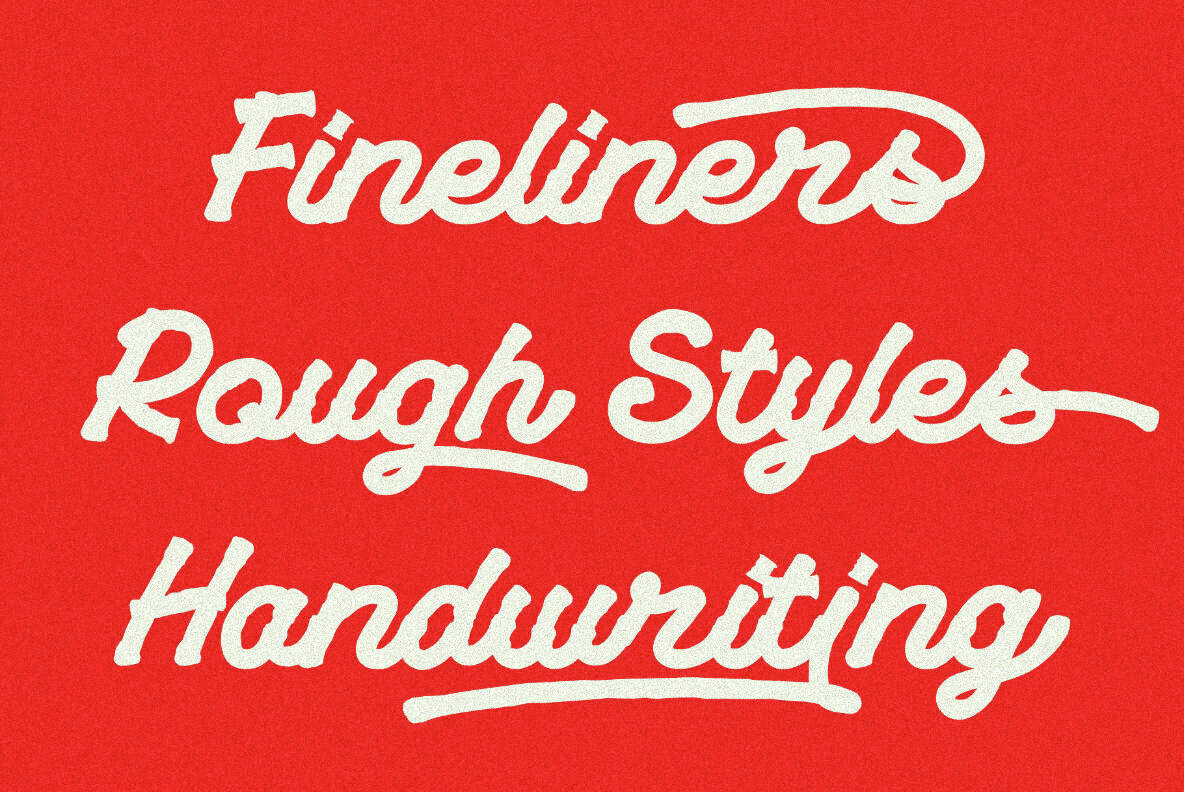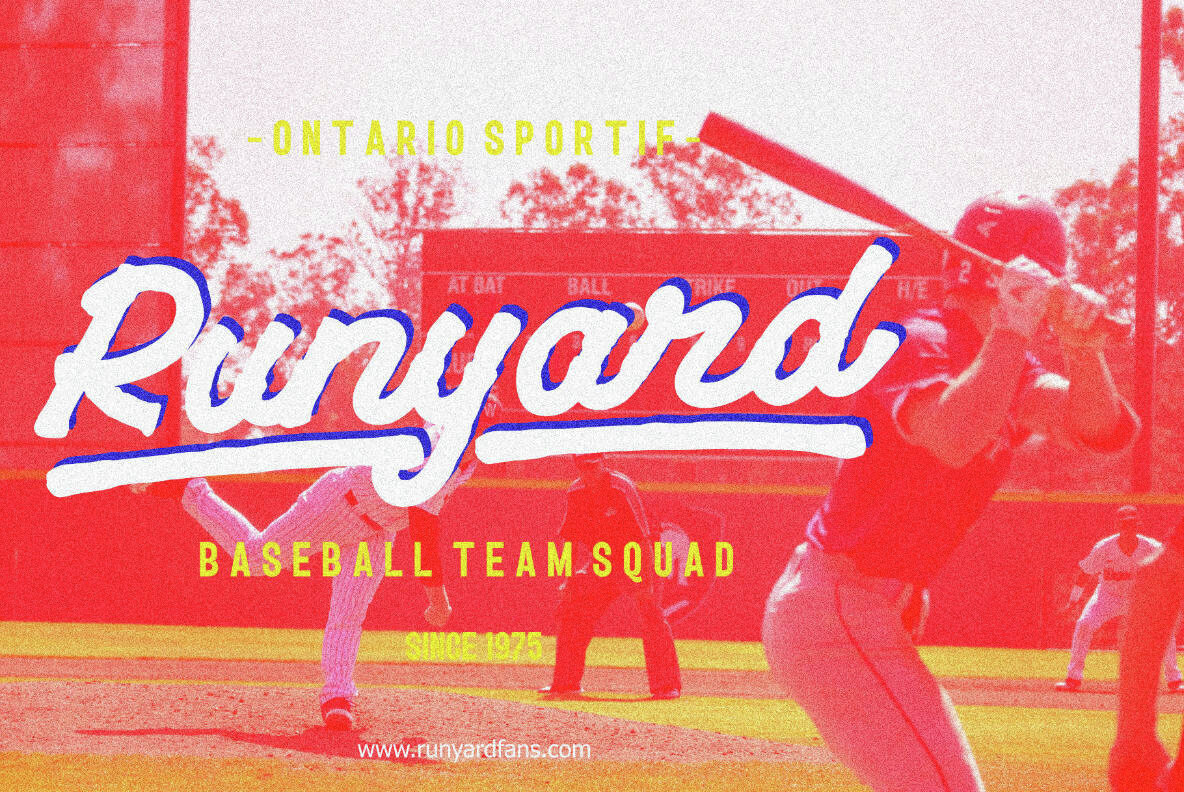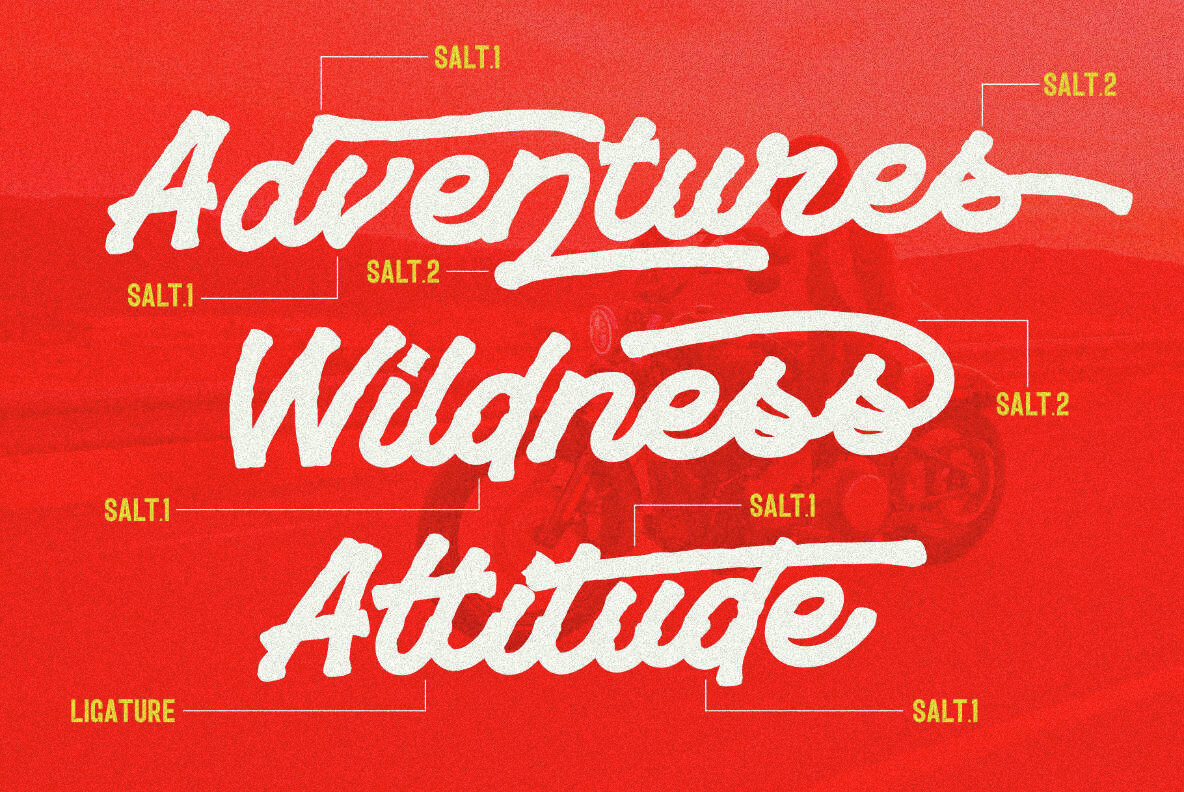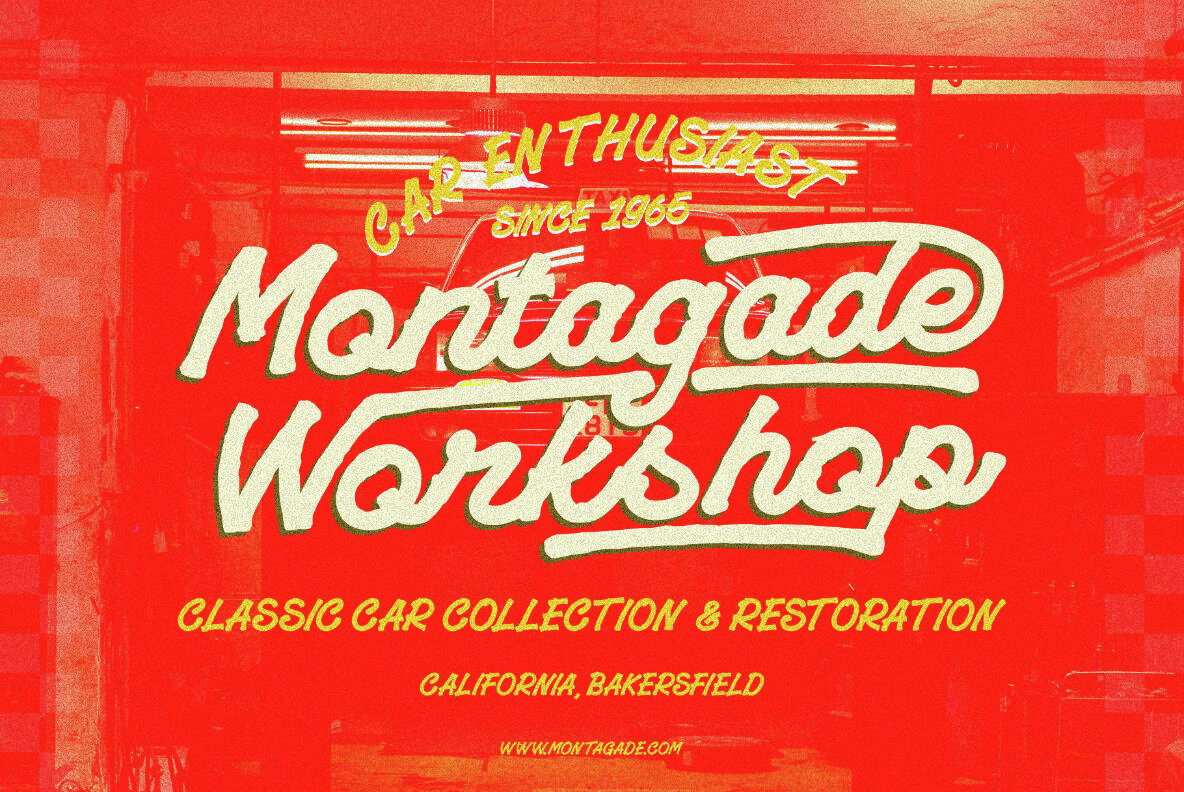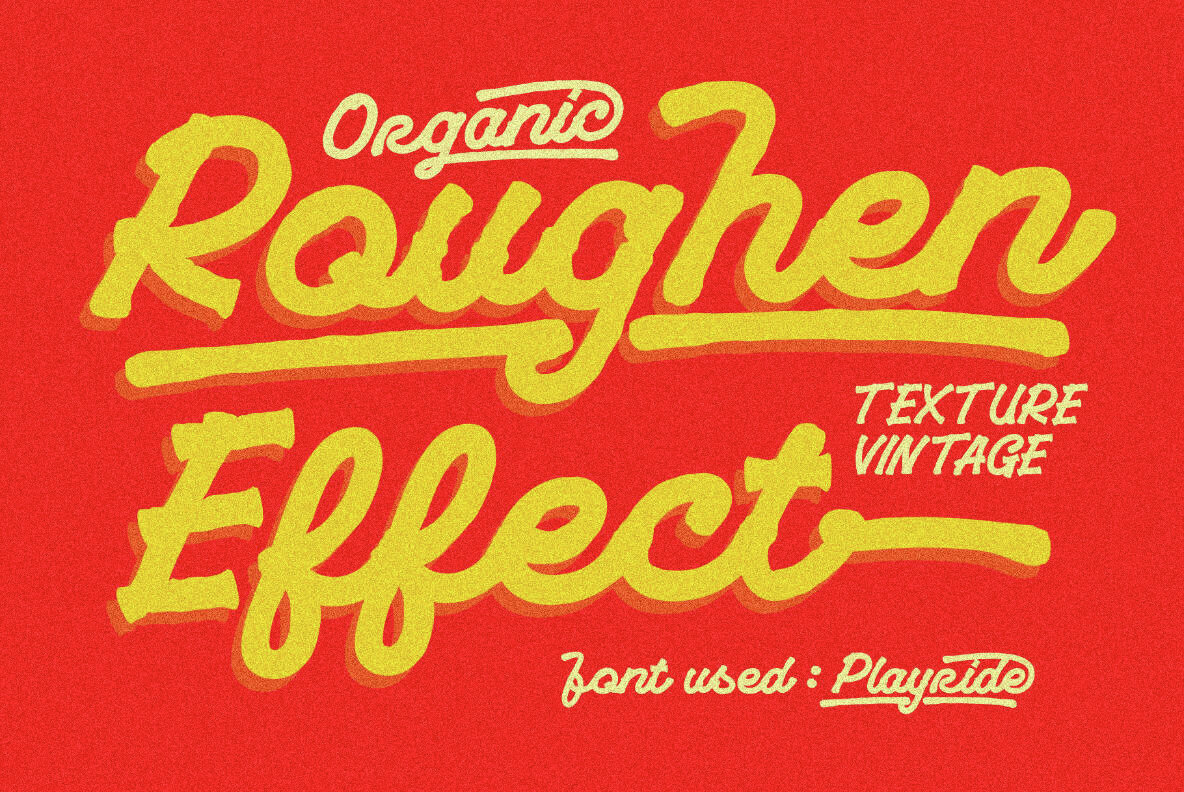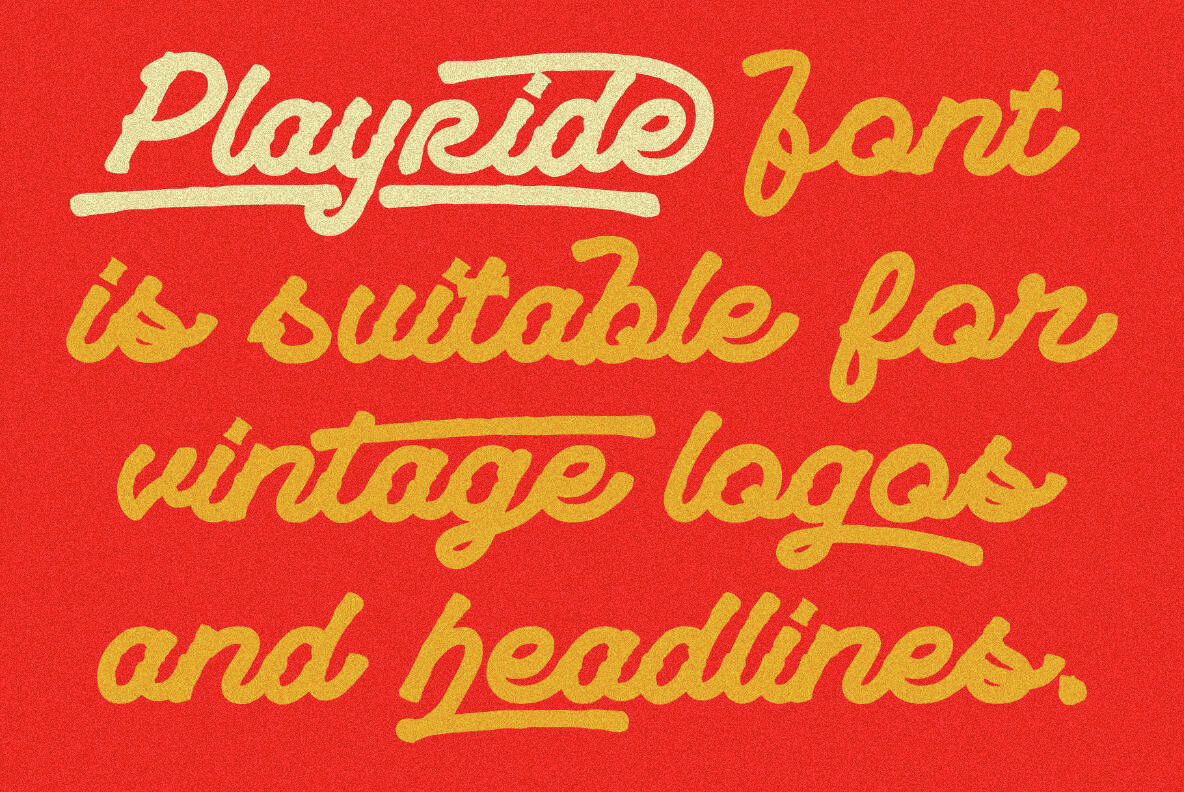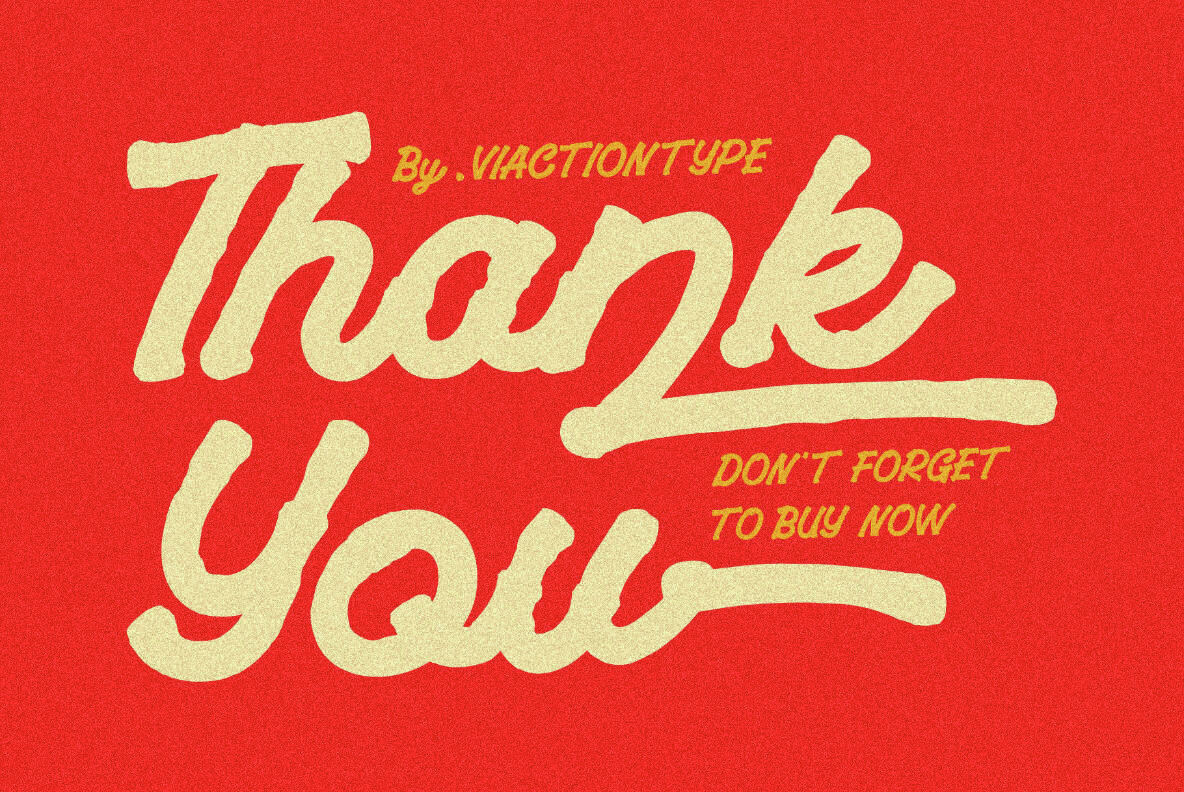
Playride Font
Playride Regular
Playride – Vintage Script Font boasts a timeless appeal, reminiscent of hand-drawn lettering from a bygone era. Its authentic strokes and elegant curves evoke a sense of nostalgia, ideal for enhancing invitations, posters, logos, and more. Whether you’re designing for a retro-themed event or seeking to infuse your artwork with character and personality, this font delivers exceptional versatility and style. With its seamless integration into design software and user-friendly interface, incorporating our Playride – Vintage Script Font into your projects is effortless. Its compatibility across various platforms ensures hassle-free usage, allowing you to focus on unleashing your creativity without constraints. Unlock the potential of your designs and captivate your audience with the timeless allure of our Playride – Vintage Script Font. Embrace the charm of yesteryears while embracing the efficiency of modern design tools. Elevate your creations today with this stunning font. Features: